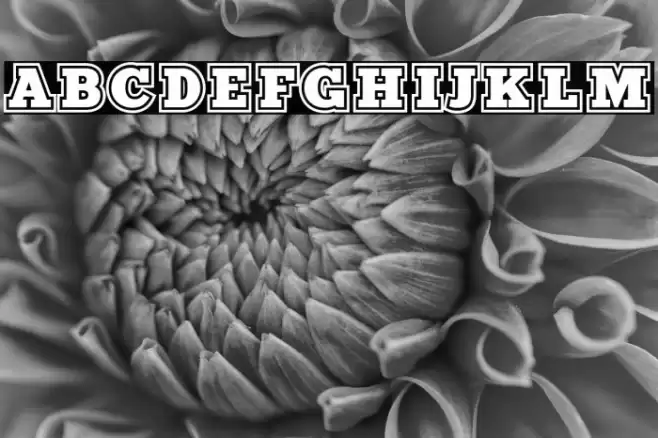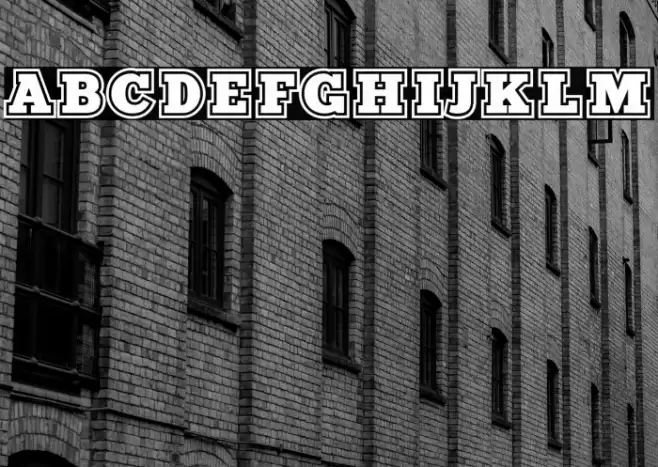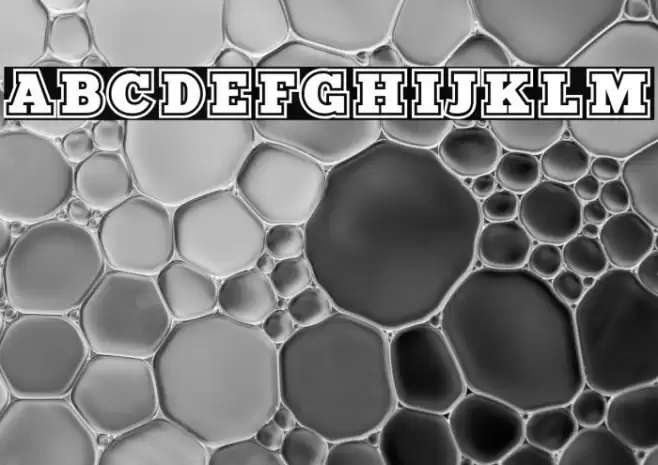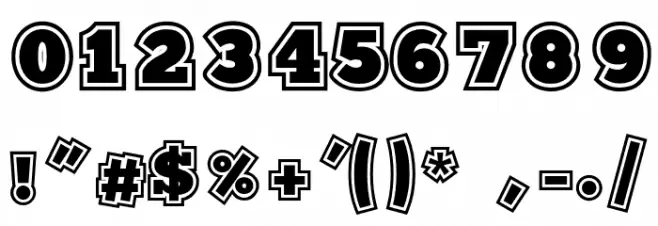
212Sports Font
212Sports Description
This font features a bold, impactful design with a strong presence. The characters are outlined, giving them a three-dimensional effect that enhances their visibility and makes them stand out. The uppercase and lowercase letters maintain a consistent style, with thick strokes and a robust structure. The numbers and special characters follow the same bold and outlined pattern, ensuring uniformity across all elements. This font is ideal for projects that require a strong visual impact and a sense of boldness.
A bold, outlined font with a strong, impactful design from Uncategorized fonts.
- Proposed Projects: Ideal for sports branding, posters, headlines, and any project needing a bold, eye-catching font.